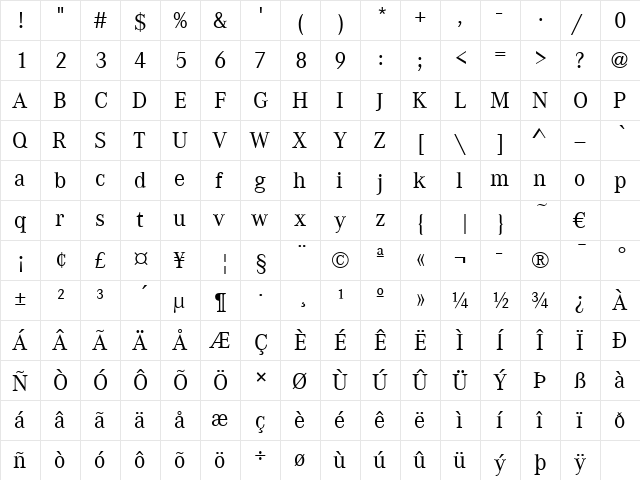
Corporate Regular Regular
Design Context for Corporate Regular Typeface
Corporate Regular offers clean, dependable letterforms without strong stylistic allegiance, making it a practical choice for designers who need flexibility.